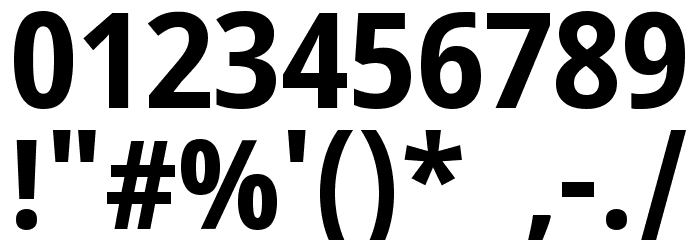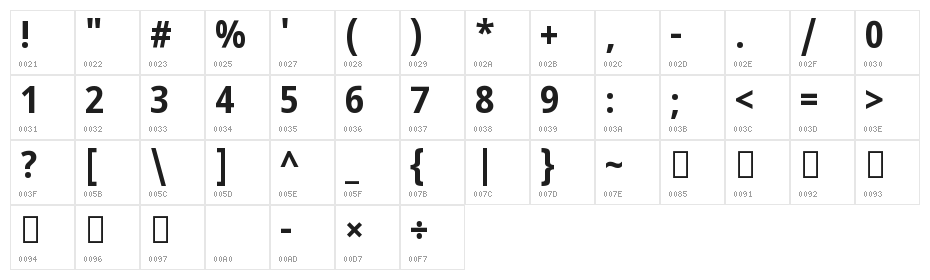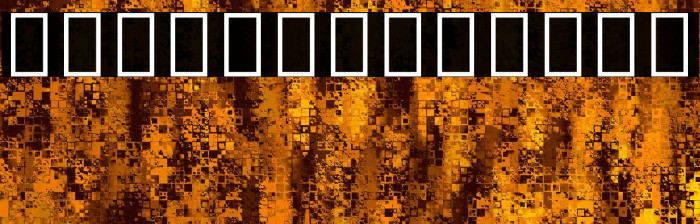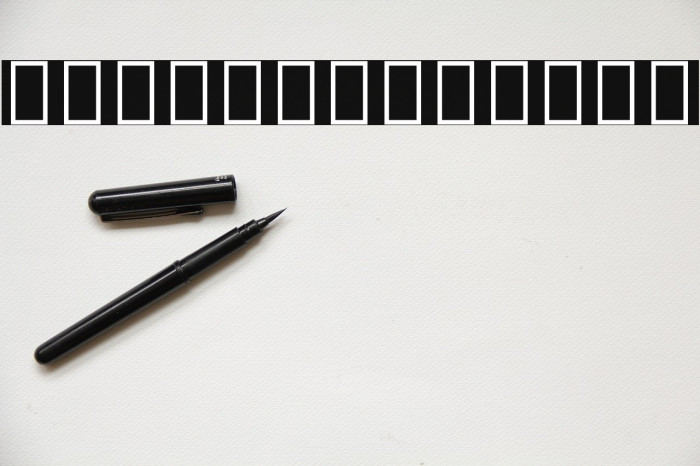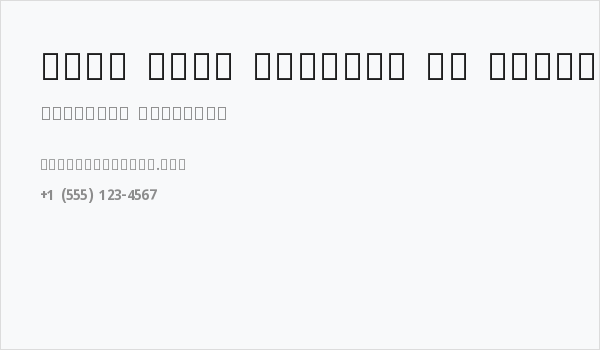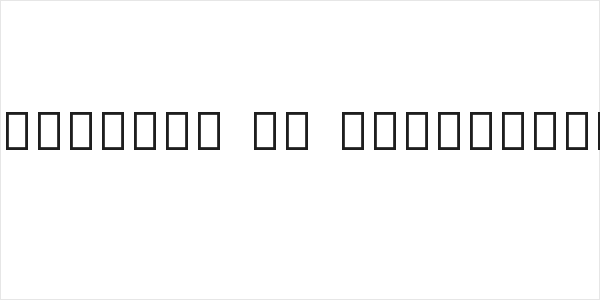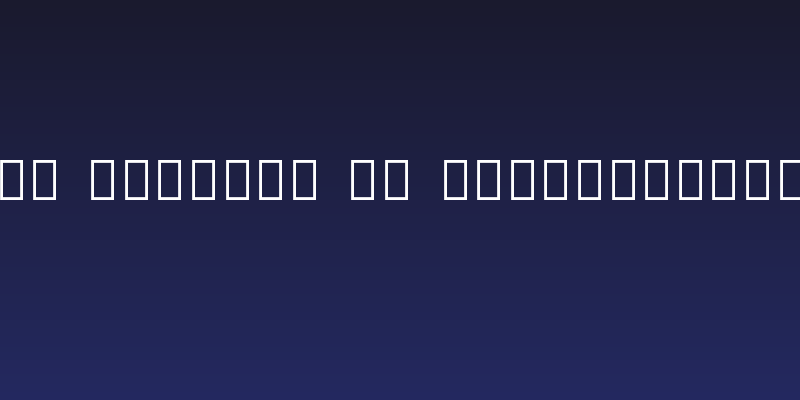
Noto Sans Sinhala UI SemiCondensed Bold Font
Noto Sans Sinhala UI SemiCondensed Bold Description
This font is a bold, semi-condensed typeface that features clean and modern lines, making it highly legible and versatile. The characters are evenly spaced, providing a balanced and harmonious appearance. The bold weight ensures strong visibility, while the semi-condensed width allows for efficient use of space without compromising readability. This font is particularly suitable for digital interfaces, offering clarity and precision in various sizes. Its modern aesthetic is complemented by a straightforward design, making it ideal for contemporary applications.
| Use Case | Headlines, User Interfaces, Branding |
| Proposed Projects | Ideal for user interfaces, digital platforms, headlines, and branding materials. |